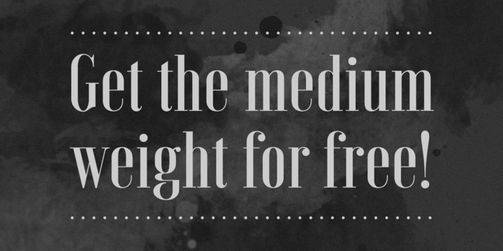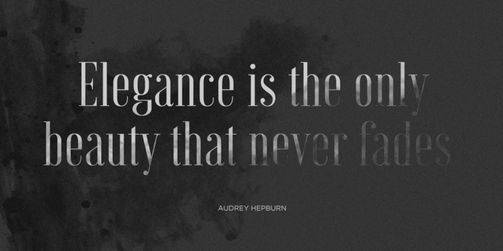
Voga is a stylish serif font with a modern Didone influence, featuring high contrast between its thick and thin strokes and elegant, tall letterforms that create a refined, luxurious feel. Its condensed width and distinctive details, such as the curled terminals on letters like "g" and "Q," make it ideal for fashion branding, high-end editorial headlines, and sophisticated logos. This font excels where a sleek, dramatic statement is needed, adding an air of elegance and exclusivity to any design.
Voga Font Family
About Voga Font Family
| Designer | Charles Daoud |